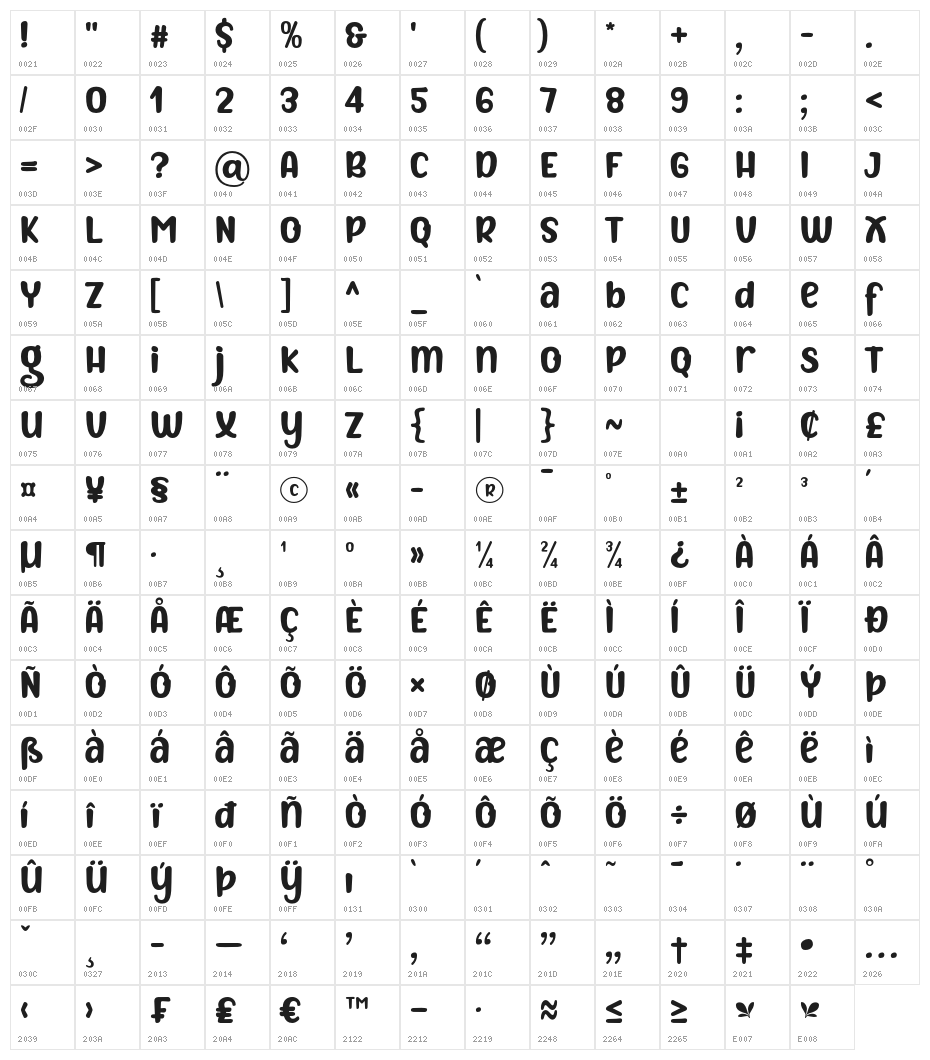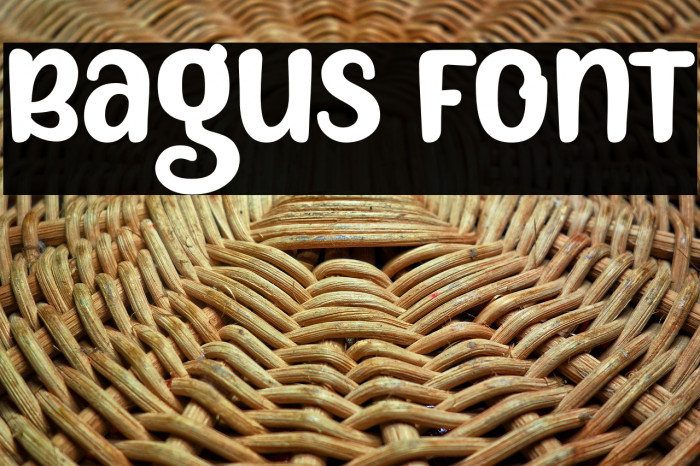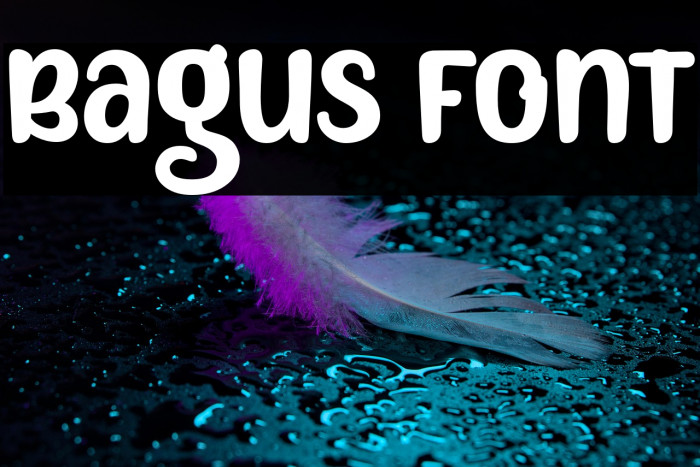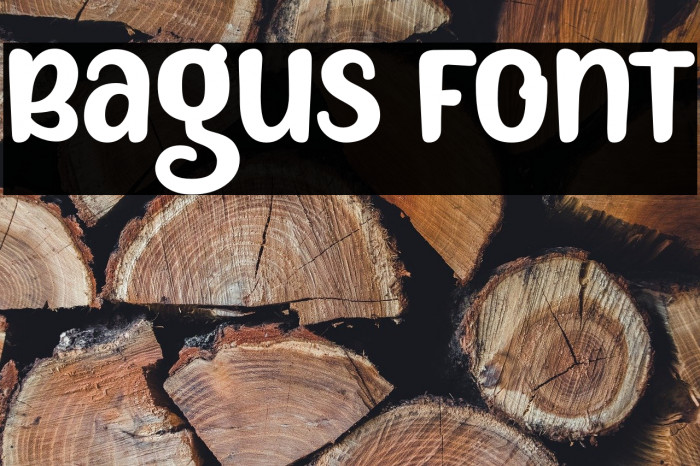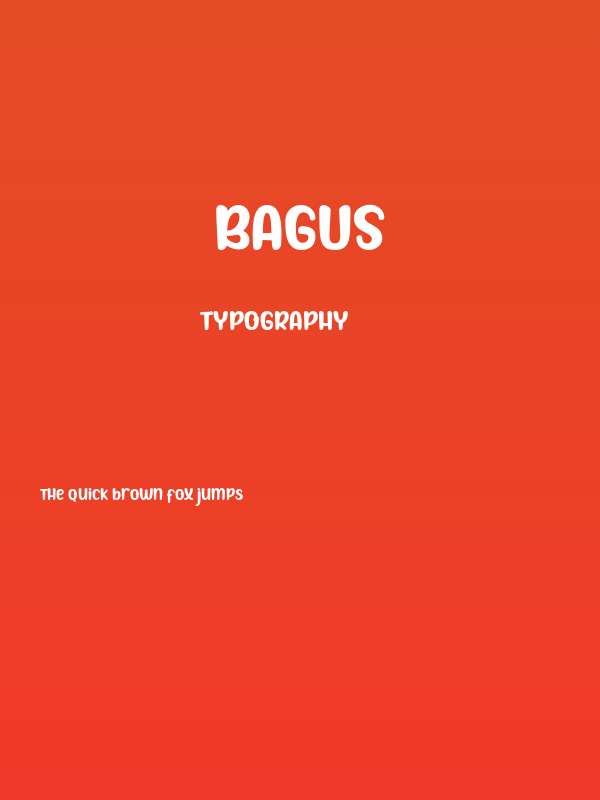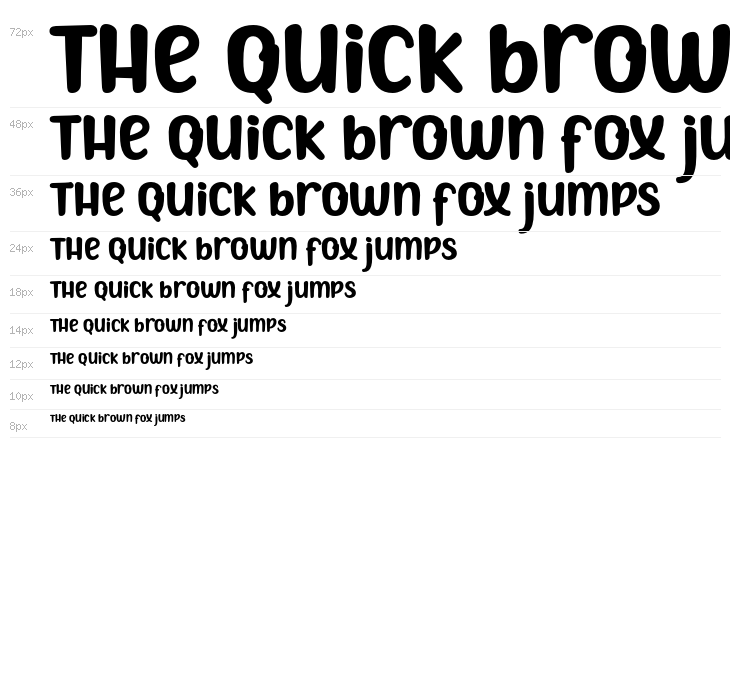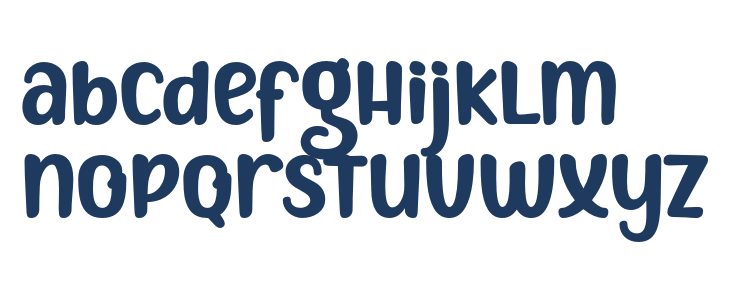
Bagus Font
Bagus Description
This playful and bold font features rounded edges and a hand-drawn appearance, giving it a friendly and approachable feel. The characters are thick and consistent in weight, with a slight bounce that adds to its whimsical nature. The uppercase and lowercase letters maintain a uniform style, while the numerals and special characters complement the overall design. Its bold strokes and rounded forms make it highly legible, even at smaller sizes, and the font exudes a sense of fun and creativity.
| Proposed Projects | Ideal for children's books, playful branding, greeting cards, and creative posters. |